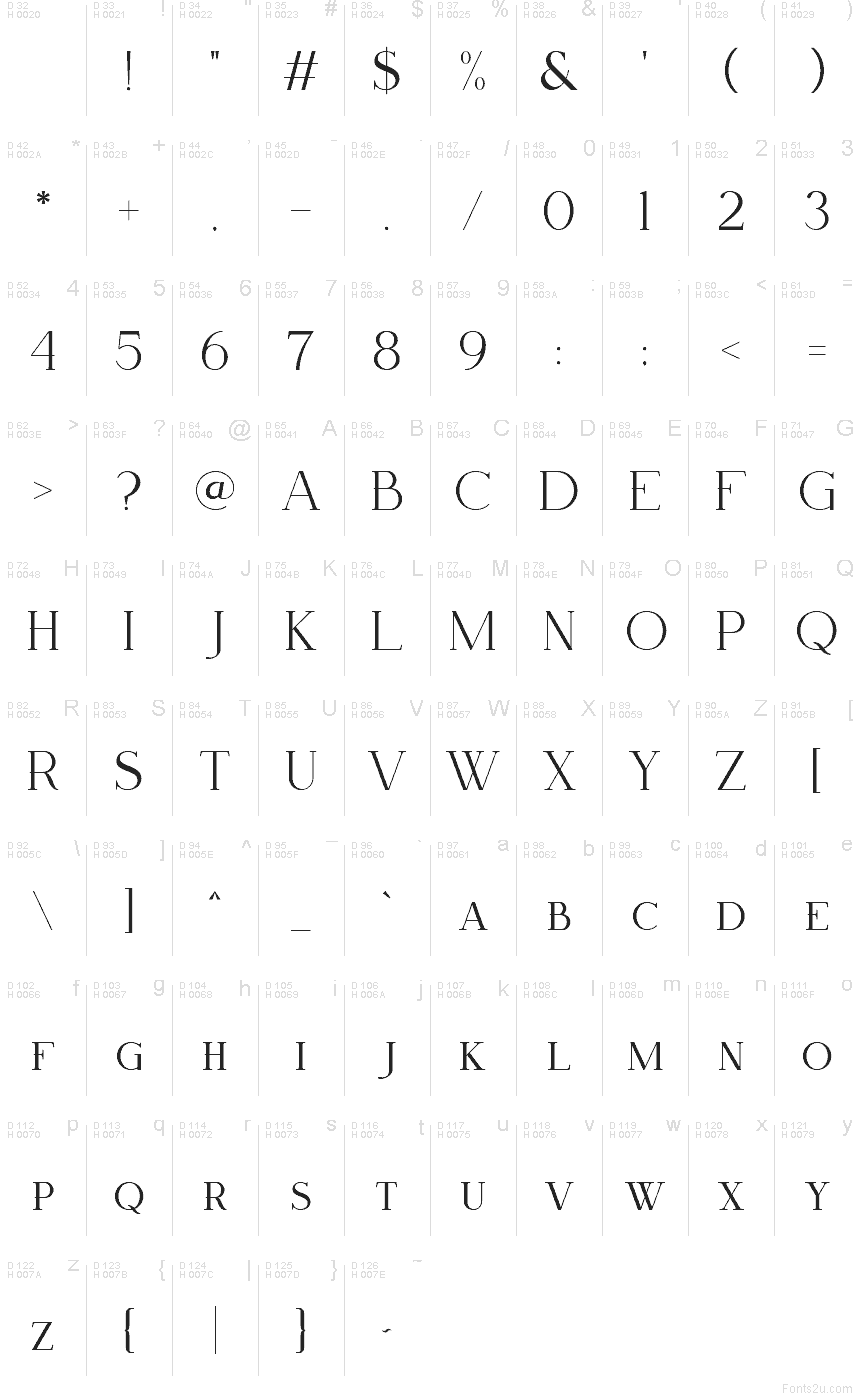
Thezon Regular
Thezon font by ErmediStudio is a free elegant serif typeface that brings a sharp, editorial edge to your layouts. Its tall, refined letters, hairline details, and crisp, chiseled serifs feel like they’ve been cut with a razor—clean, modern, and slightly dramatic. The generous spacing lets each word breathe, giving headlines a cool, controlled presence instead of loud noise.
Using Thezon, your titles take on that polished magazine feel that suits fashion branding, beauty packaging, book covers, posters, social media graphics, and upscale logos. This free font shines at larger sizes where its fine strokes stay clear and luxurious. Pair Thezon with a simple geometric sans in smaller text to keep the serif work as the star of your composition.